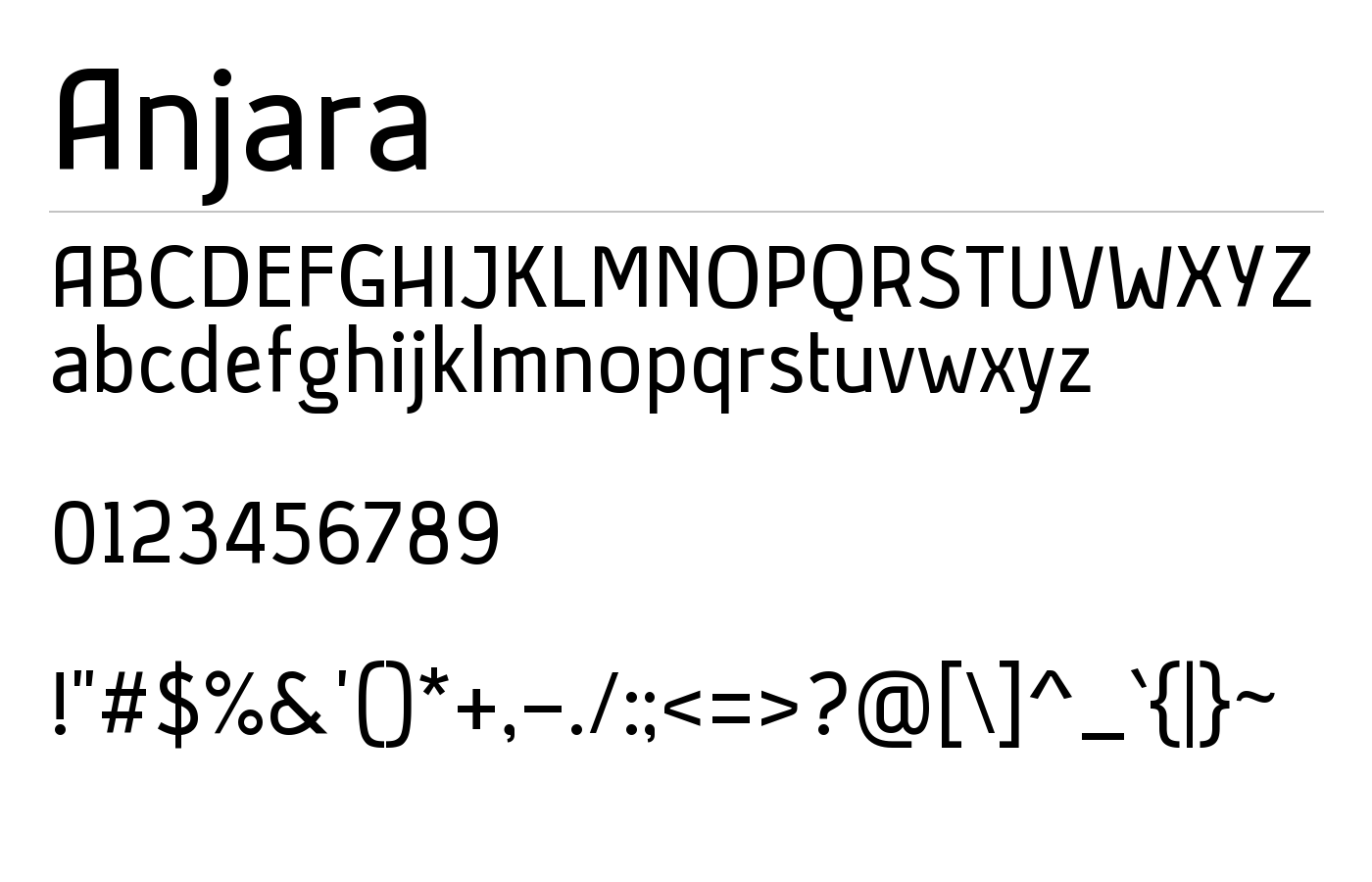
Anjara is a modern sans serif font with a slightly condensed width and medium weight that combines clean lines with subtle, unique details, such as the curved leg on the uppercase Q and the distinctive shape of certain lowercase letters like g and k. Its high x-height and open letterforms ensure excellent readability, making it suitable for both headlines and body text. This font carries a contemporary, professional vibe that works well for branding, editorial content, and digital interfaces seeking a fresh yet approachable look.
Anjara Font
About Anjara Font